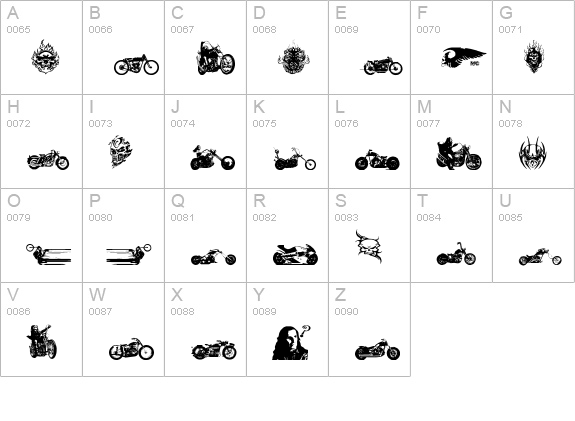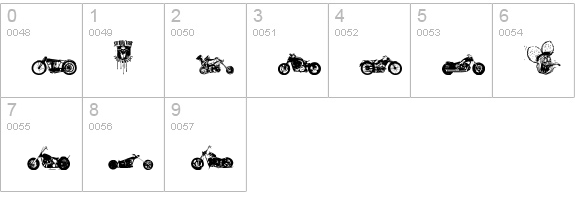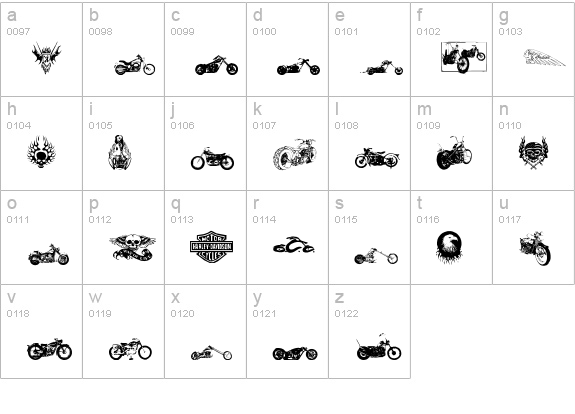
choppersforlife Font Details
Choppersforlife font is a bold and dynamic typeface that exudes power and strength. With its sharp edges and modern design, this font is perfect for making a statement in any project or design. The versatility of Choppersforlife font allows it to be used in a variety of applications, from branding to posters to social media graphics. The best part? Choppersforlife font is available for free download at FontsMarket.com. Simply head over to the website and add this striking font to your collection without spending a dime. Don't miss out on the opportunity to elevate your designs with the impactful Choppersforlife font today!